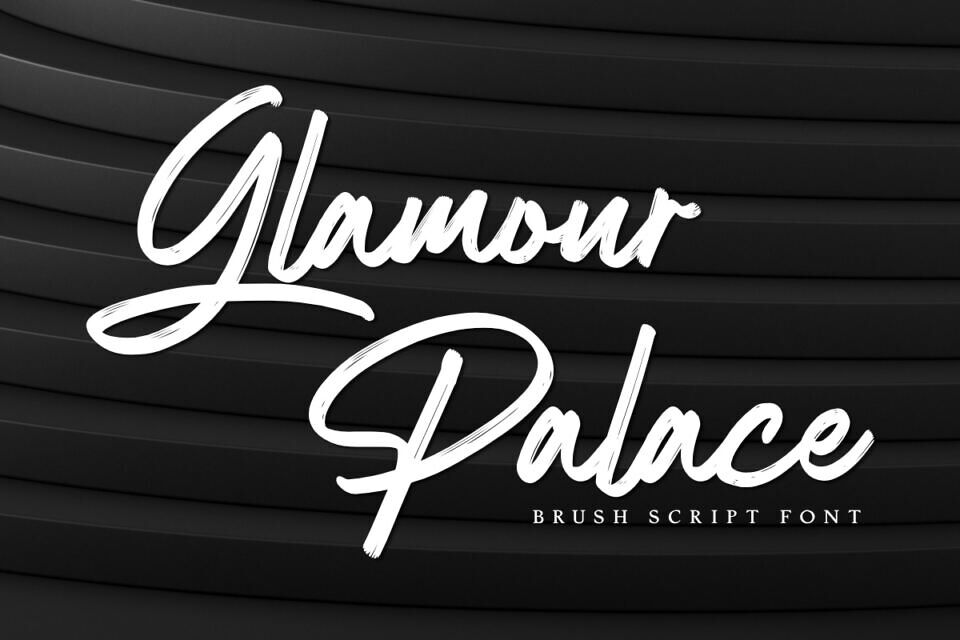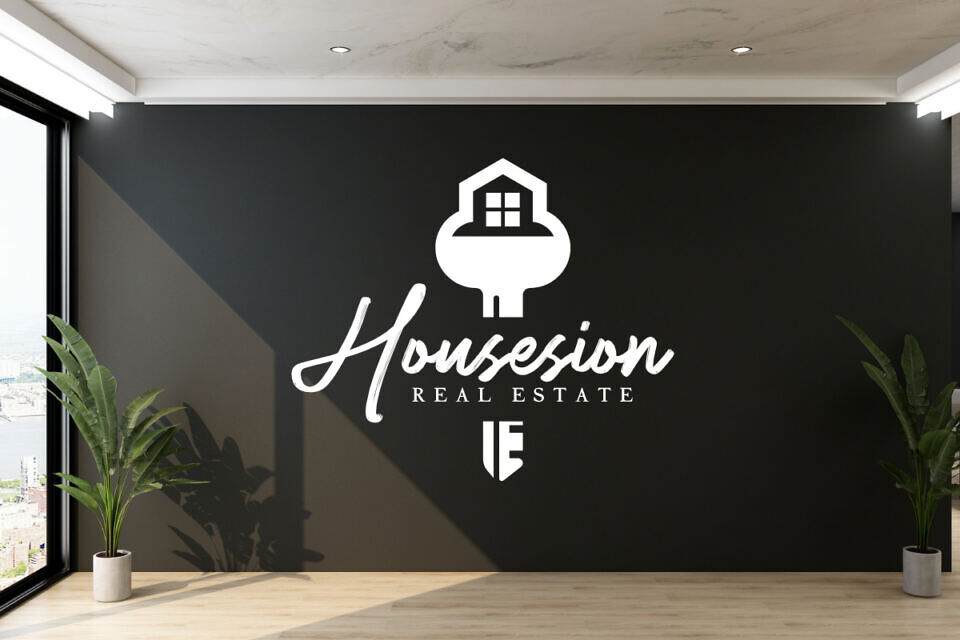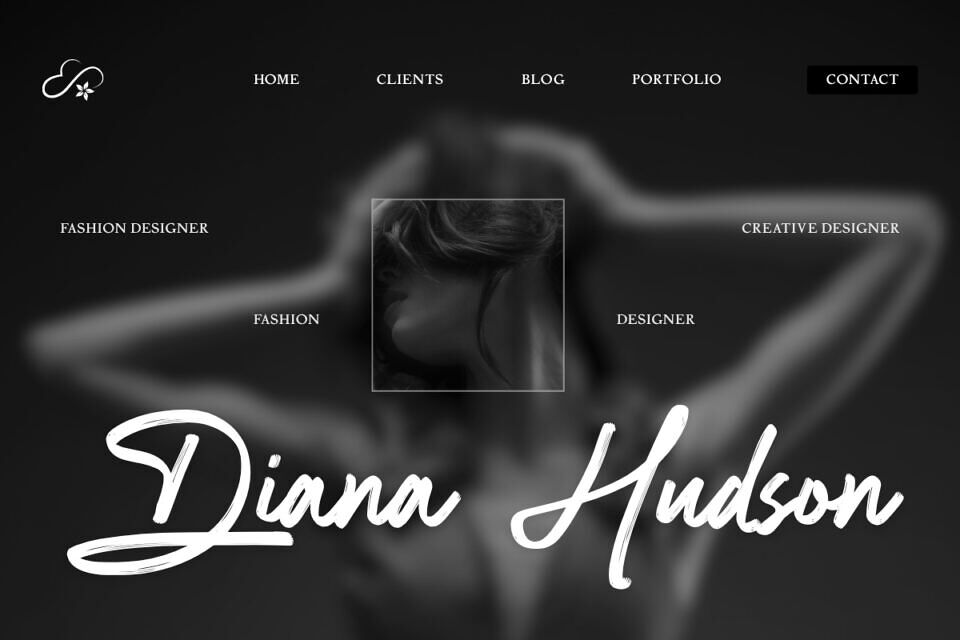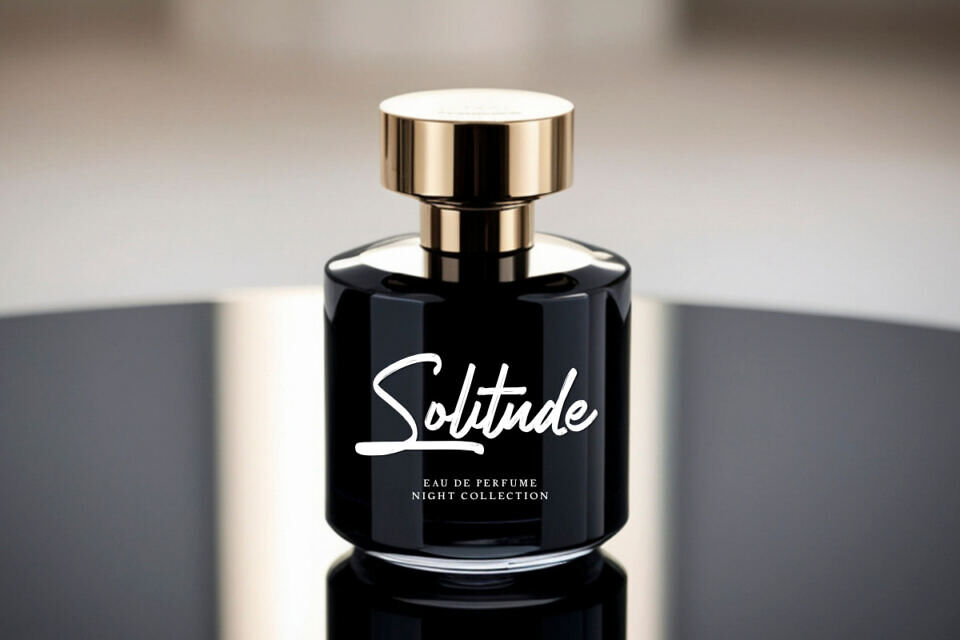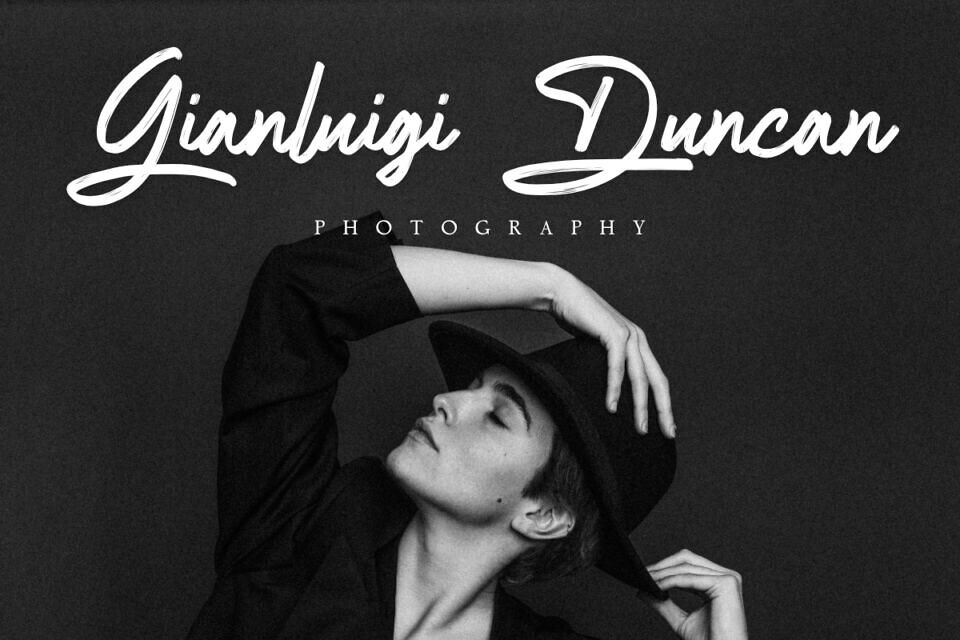
Glamour Palace Font
Glamour Palace is an elegant brush script font designed to bring luxury, charm, and handcrafted sophistication into your creative projects. Inspired by natural signature lettering, this font combines smooth flowing strokes with stylish brush textures, creating a refined and expressive script that feels both personal and premium.
Its sophisticated style makes it ideal for fashion, cosmetics, and luxury designs, adding a touch of elegance to various projects, from wedding invitations to social media content and product labels.